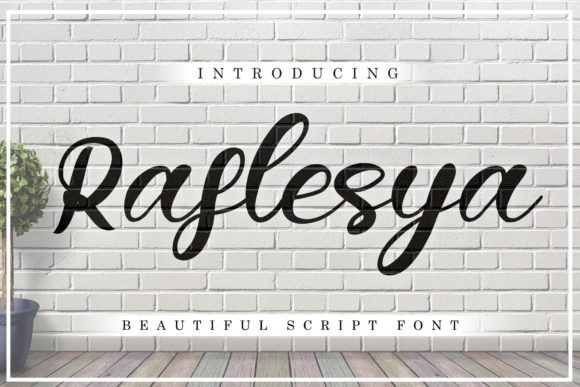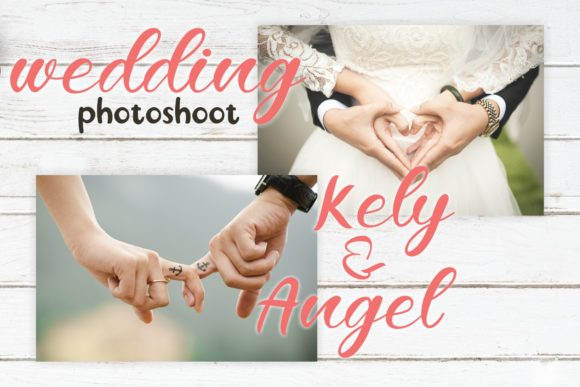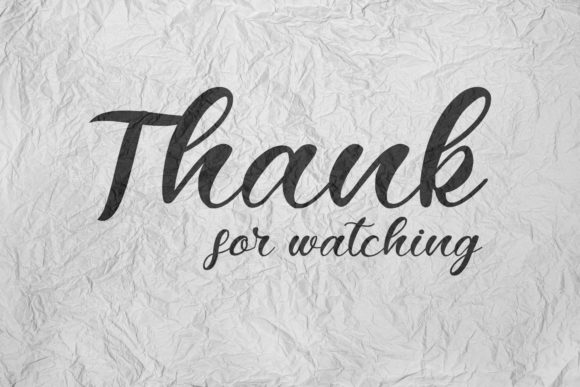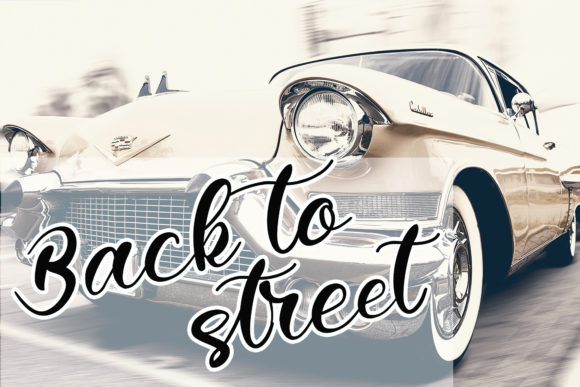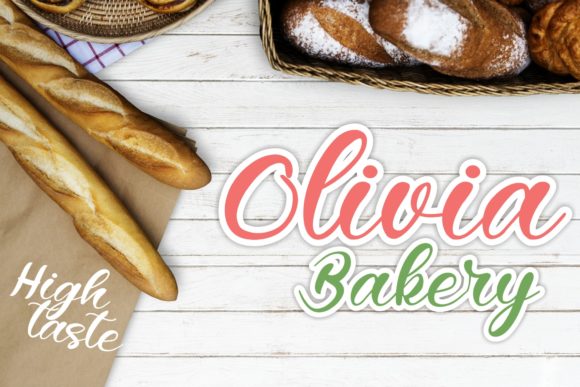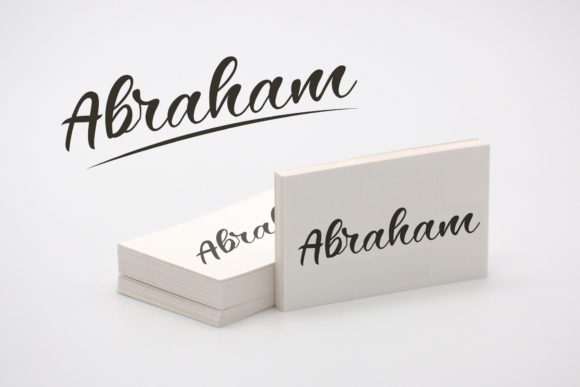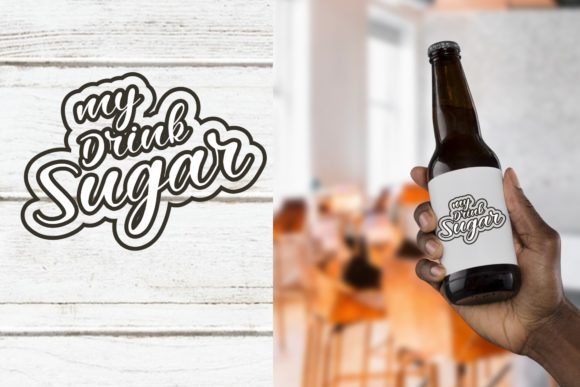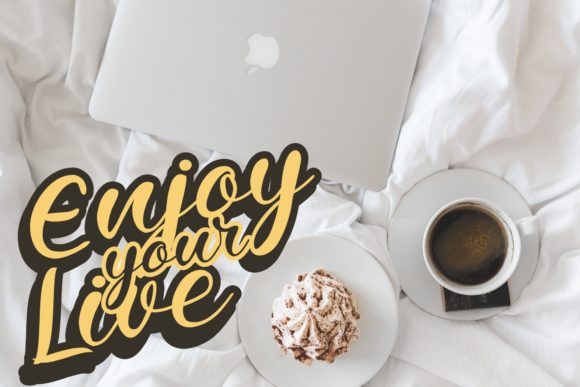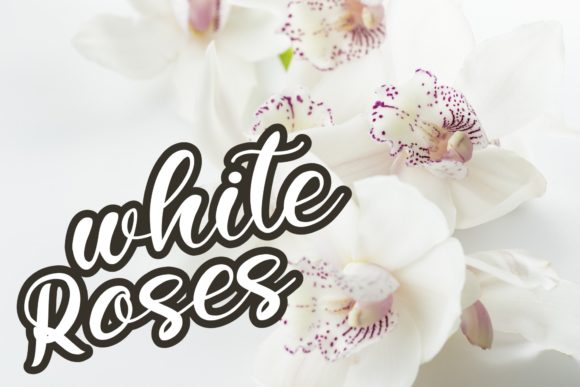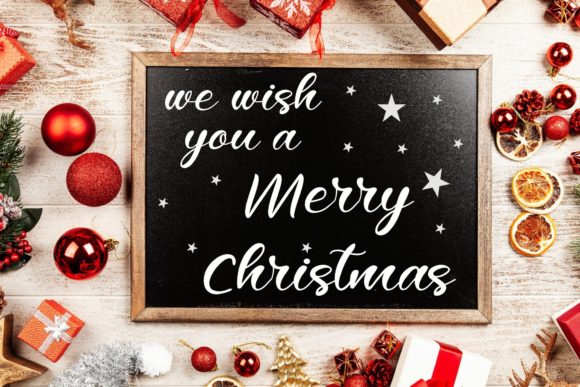
HomeScript FontsRaflesya Font Script Fonts Raflesya Font FacebookXPinterestWhatsApp Raflesya Font Poster 2 Raflesya Font Poster 3 Raflesya Font Poster 4 Raflesya Font Poster 5 Raflesya Font Poster 6 Raflesya Font Poster 7 Raflesya Font Poster 8 Raflesya Font Poster 9 Raflesya Font Poster 10 Raflesya Font Poster 11 About Raflesya Font Raflesya is a beautiful script font with authentic letters. It will add a personal touch to any crafting idea! DOWNLOAD ON CREATIVE FABRICAThis font is sold and delivered by Creative Fabrica. Font Canyon may earn a commission if you buy through this link. People also explored Yogurt Font Shine on You Font Dog Mom Font Misselom Font Verathrine Font Shark Font Stampson Font Kuaco Font Bokeh Font 330 0 TagsRaflesya Font Previous articleAuro Rumpthut FontNext articleMalvinas Duo Font LEAVE A REPLY Cancel reply Comment: Please enter your comment! Name:* Please enter your name here Email:* You have entered an incorrect email address! Please enter your email address here Website: Save my name, email, and website in this browser for the next time I comment. Personal Use Free Befindisa Personal Use Free Read more about this font GoodFay Personal Use Free Read more about this font Underwood Champion Personal Use Free Read more about this font Ennobled Pet Personal Use Free Read more about this font BLOG How to Cut Any Font on Cricut: Convert a Font to SVG (Free) Turn any font into a clean SVG so it cuts crisp on Cricut - a quick 3-step workflow using a free font-to-SVG tool. Exploring Font Trends 5 Fonts That Will Dominate Design Trends in 2026 The 10 Best Handwriting Fonts to Add Personality to Your Designs